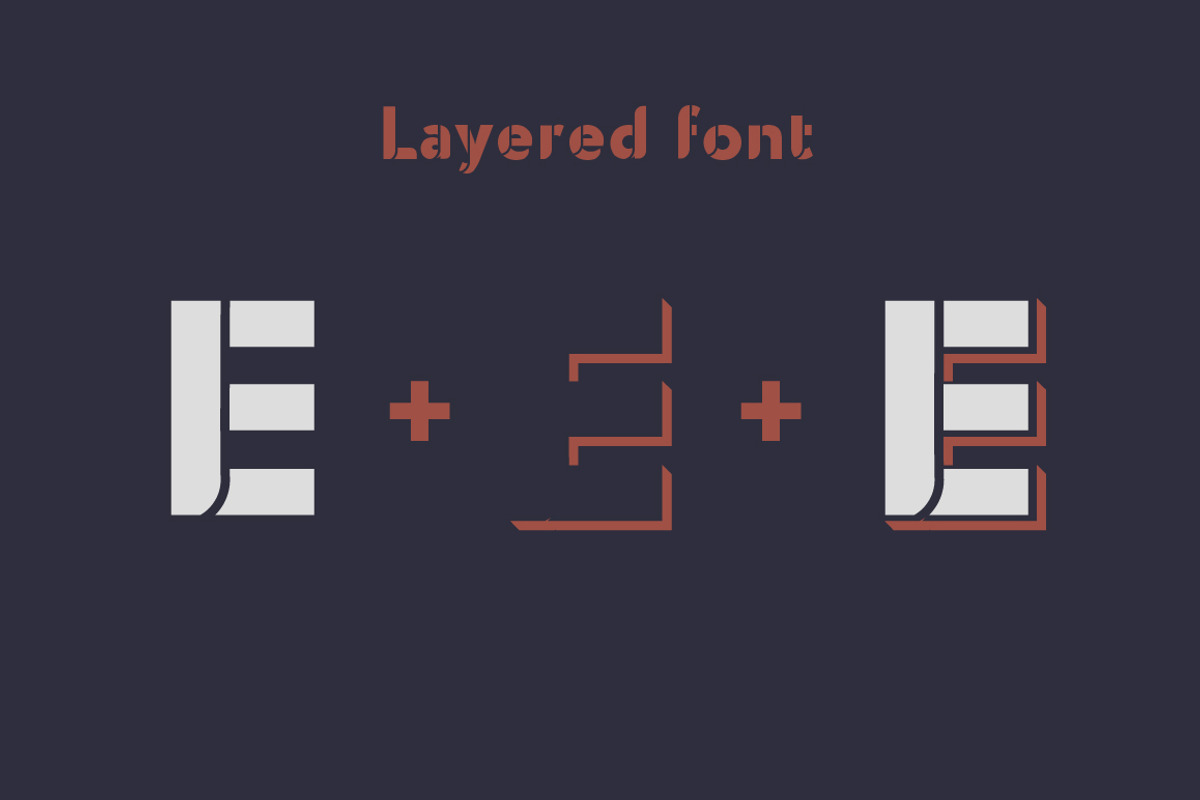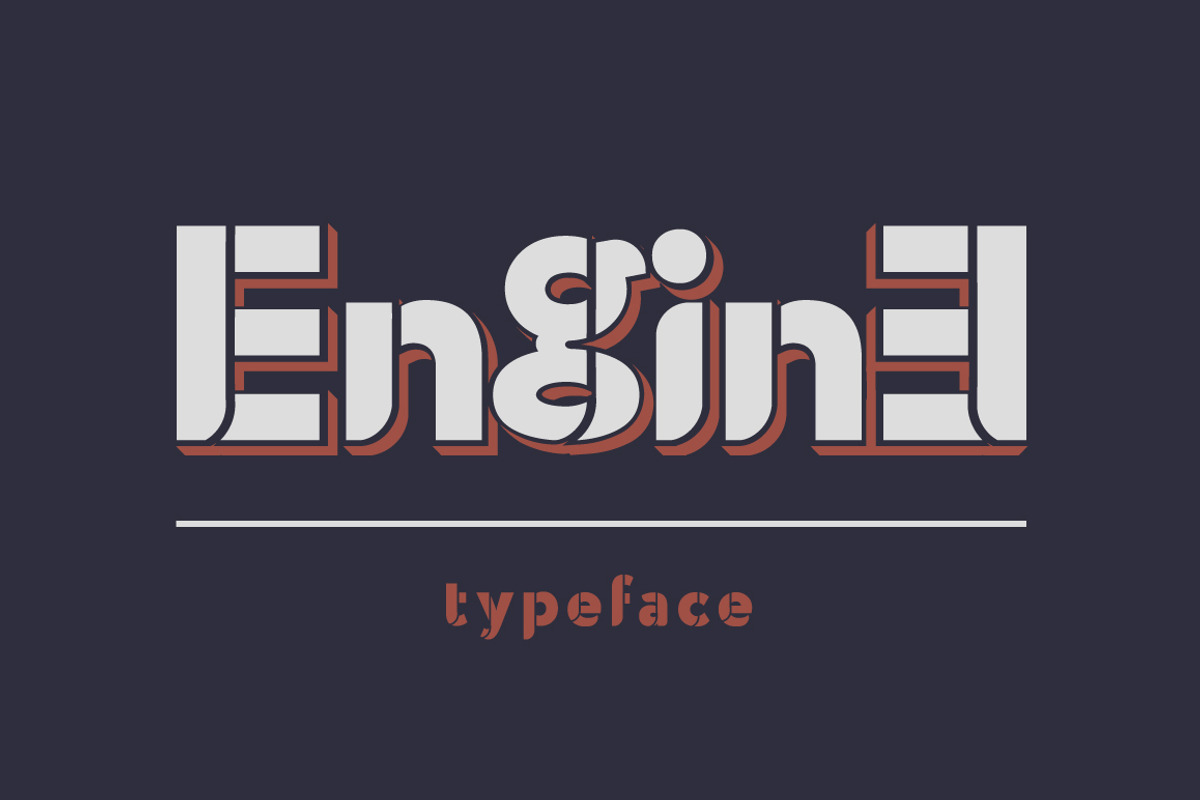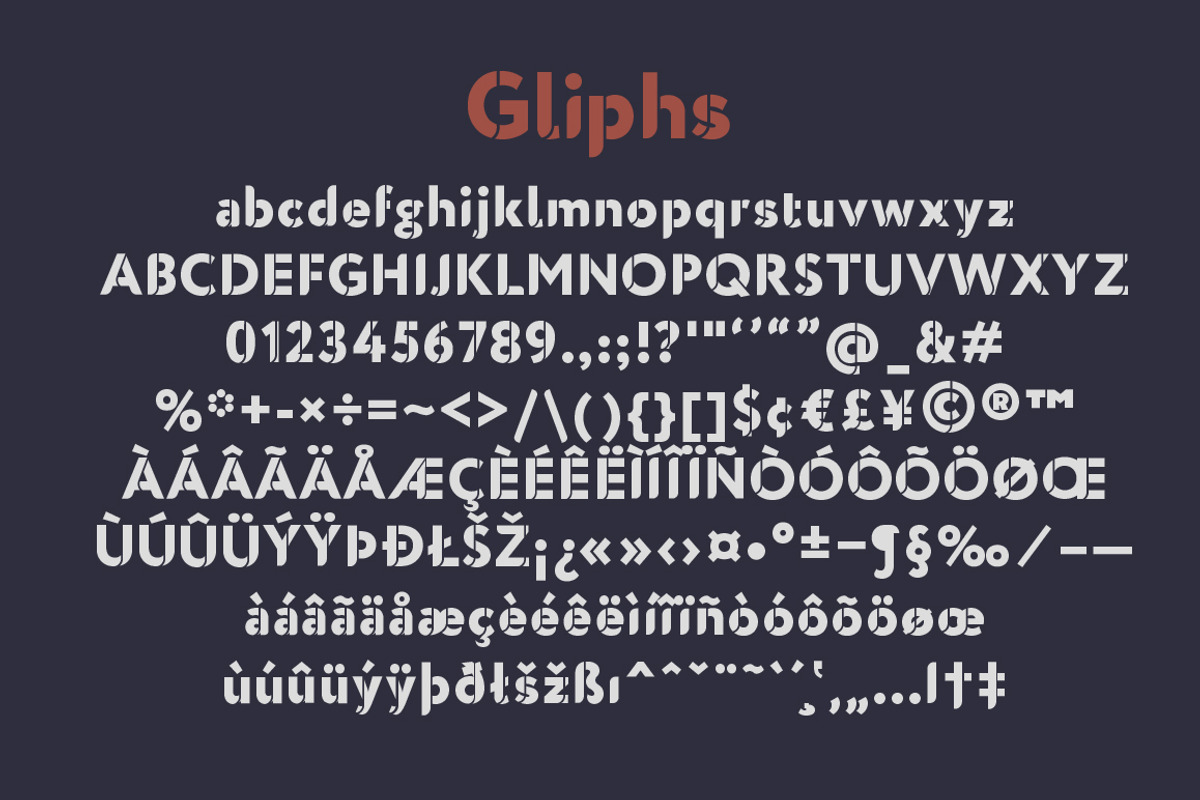
Engine - layered vintage font.
A vintage font containing a base layer and a shadow layer. Designed to design logos, headlines and product design, in industrial themes.